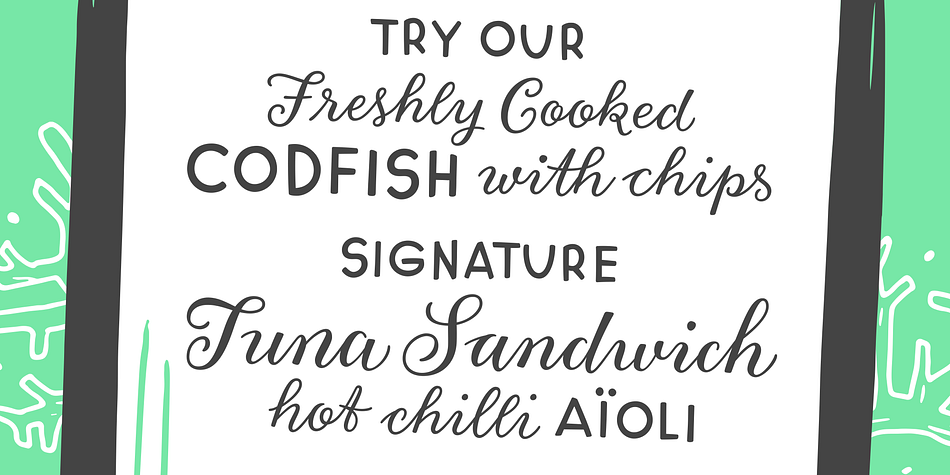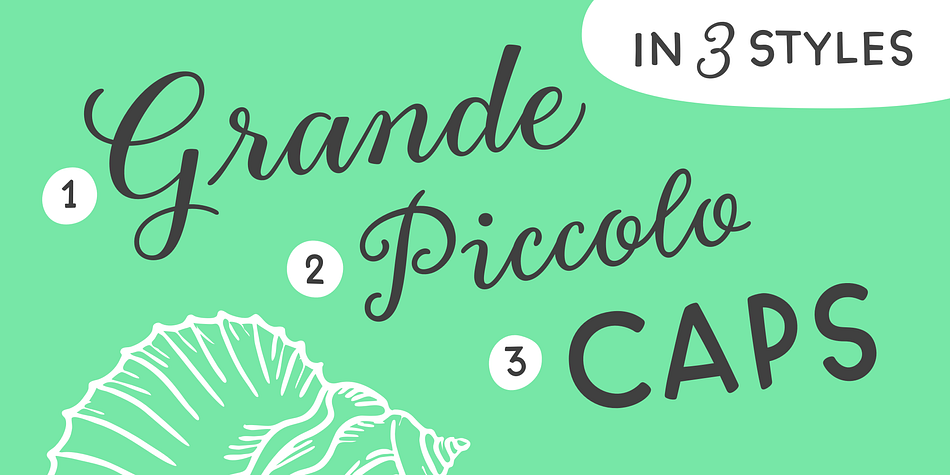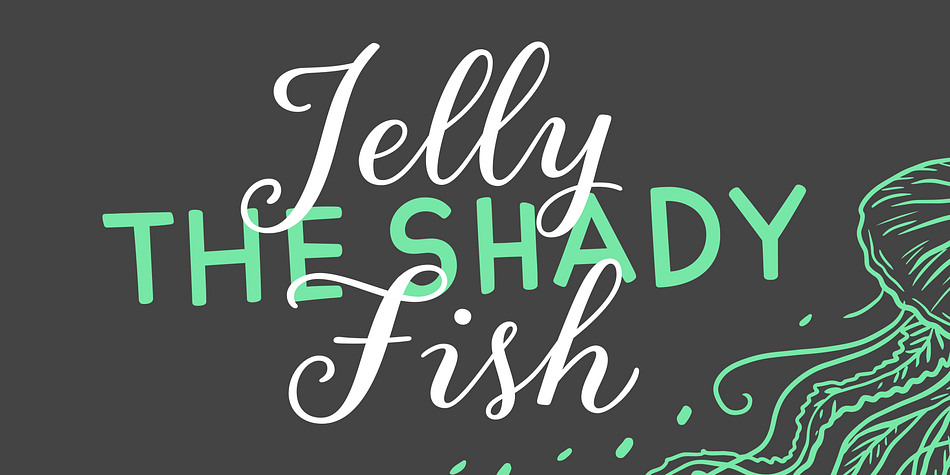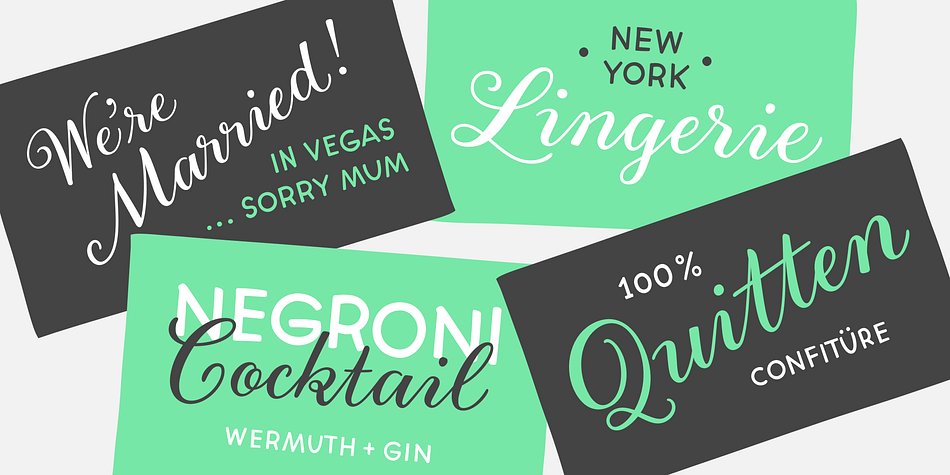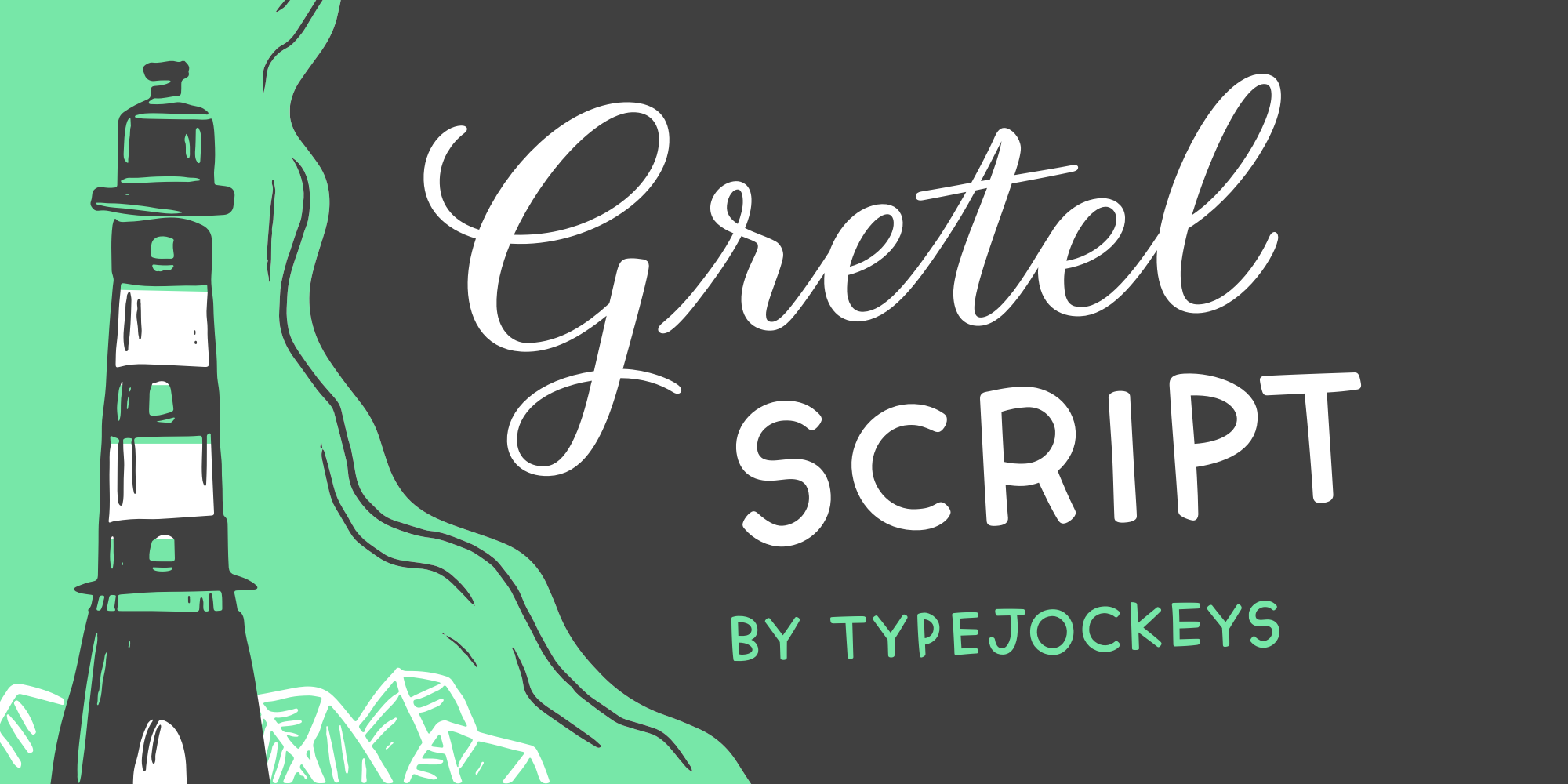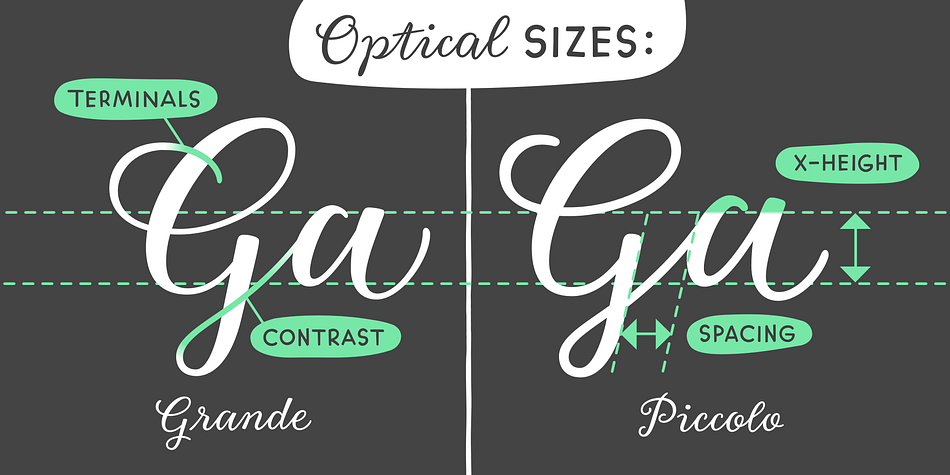
Designed by Michael Hochleitner, Simon Liesinger and Christoph Schütz, Gretel Script is a script and hand display font family. This typeface has three styles and was published by Typejockeys.
This quirky script is packed with features. Best of all: Optical sizes! The three style family is based on the writing of calligrapher Natascha Safarik. All glyphs were redrawn manually to produce vector shapes that look perfect in literally every size!
Foundry | Typejockeys |
Styles | Hand Display, Script |
Designers | Michael Hochleitner, Franziska Weitgruber, Christoph Schütz, Simon Liesinger |